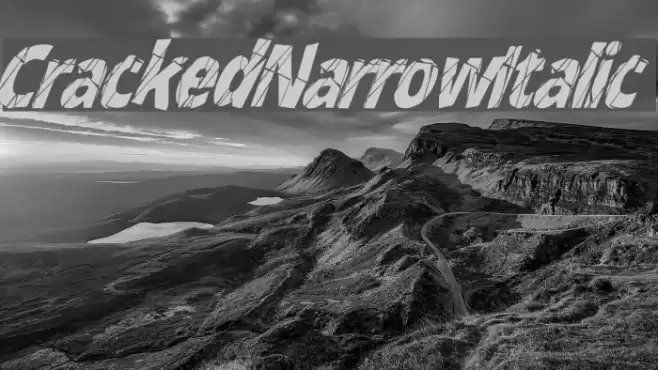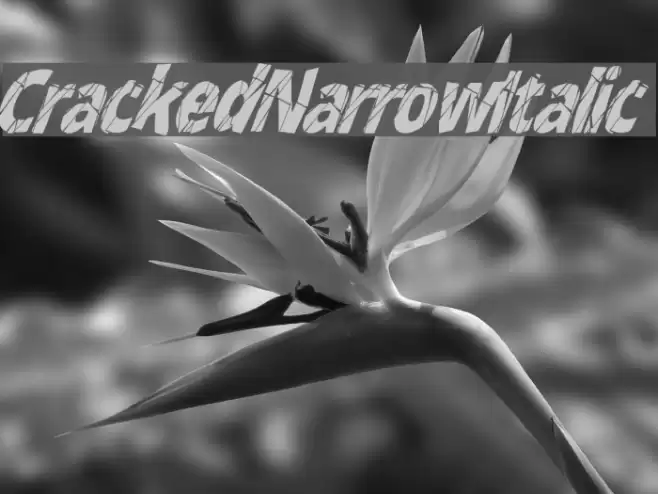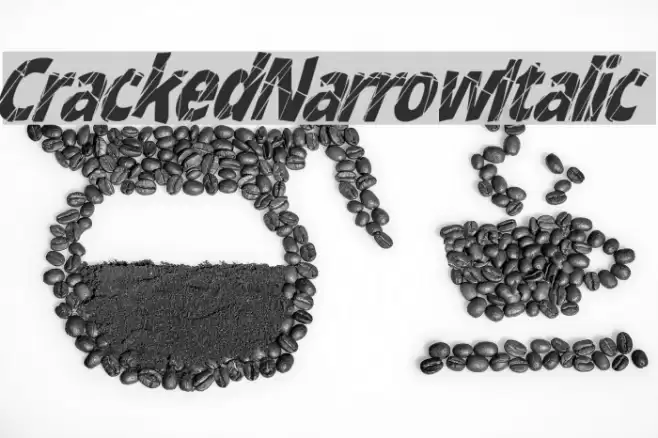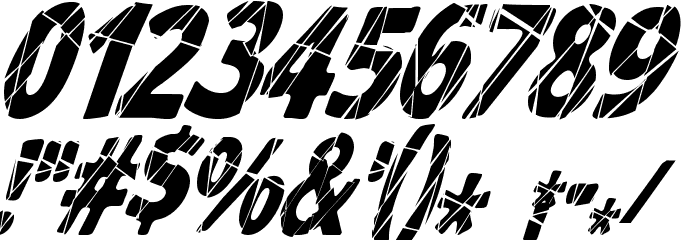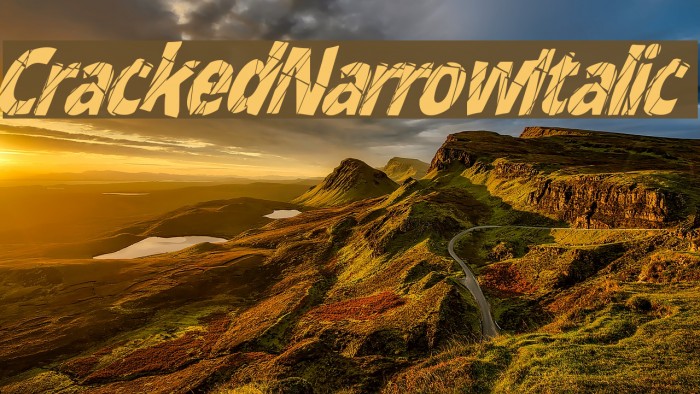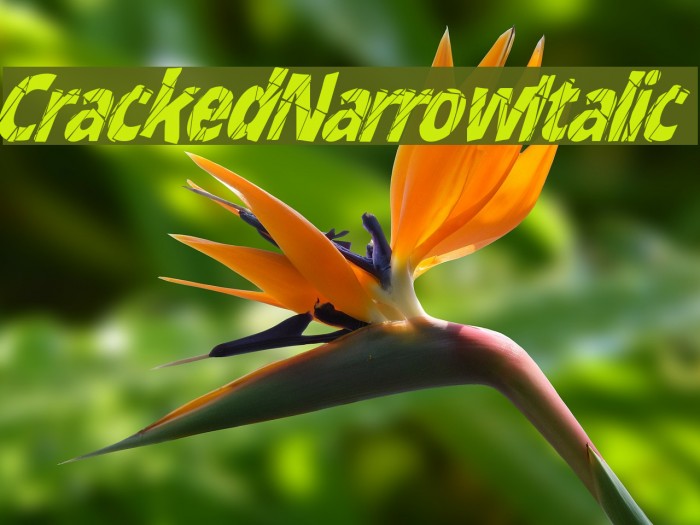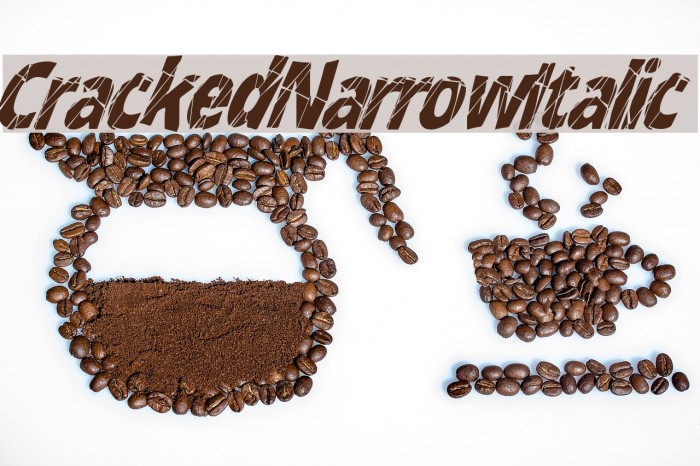
CrackedNarrowItalic Font
CrackedNarrowItalic Description
This font features a bold, italicized style with a unique cracked texture that gives it a distressed and edgy appearance. The characters are narrow and slanted, adding a dynamic and energetic feel to the text. The uppercase and lowercase letters maintain a consistent style, with sharp angles and a modern aesthetic. Numbers and special characters are also included, each with the same cracked effect that adds to the overall cohesive look. This font is ideal for projects that require a bold statement or a grunge-inspired design.
A bold, italicized font with a cracked texture and narrow, slanted characters from Distorted Eroded fonts.
- Proposed Projects: Ideal for album covers, posters, urban-themed designs, and edgy branding projects.
- Overall Style: Modern, Edgy